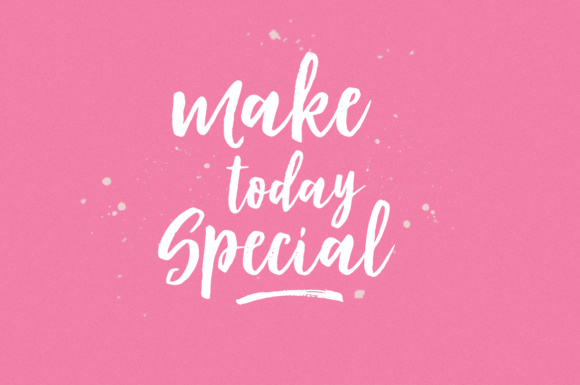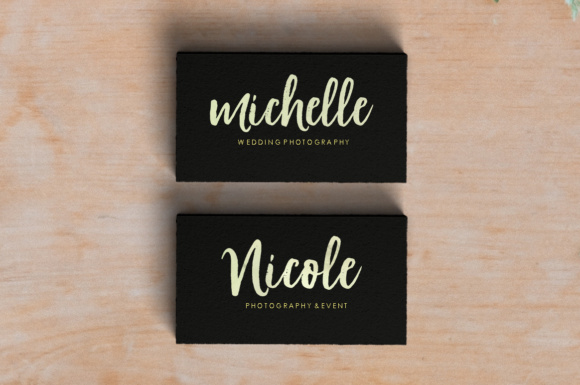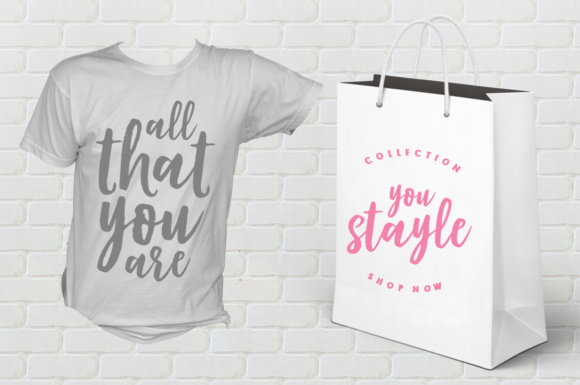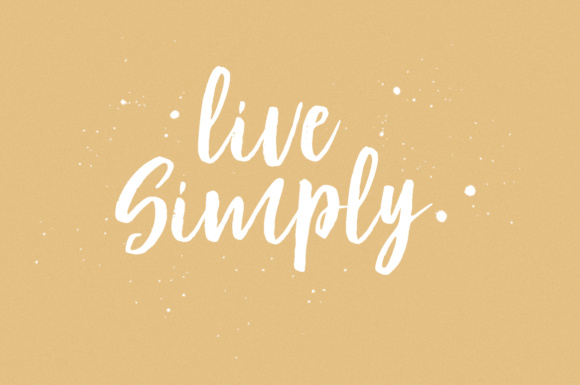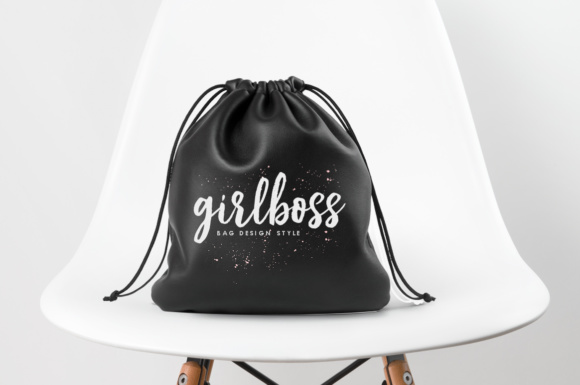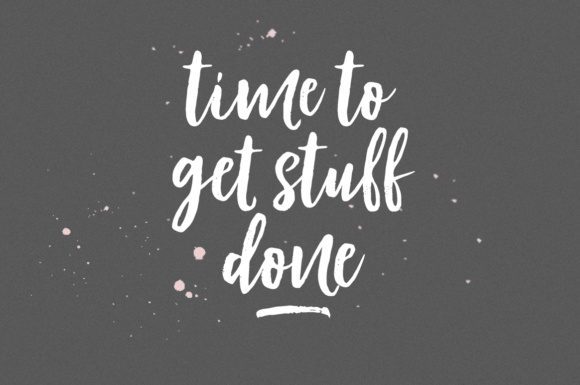
Modestyle Font
About Modestyle Font
Modestyle is a beautiful handcrafted font, with tons of movement and grace. This calligraphy script has a stunning flowy, irregular appeal and wil give your projects a very hand-lettered look.